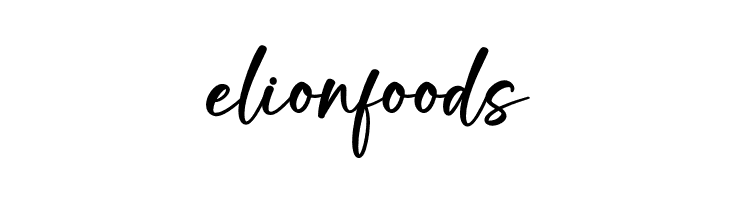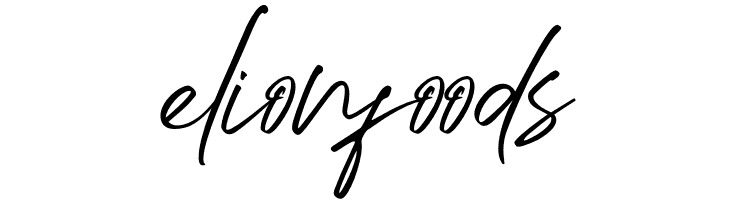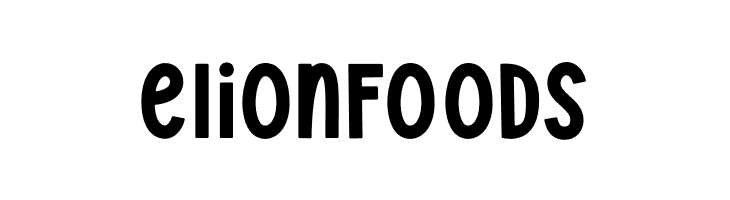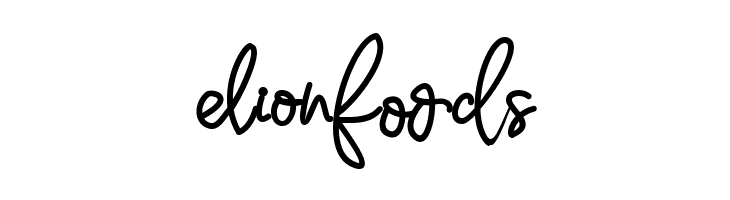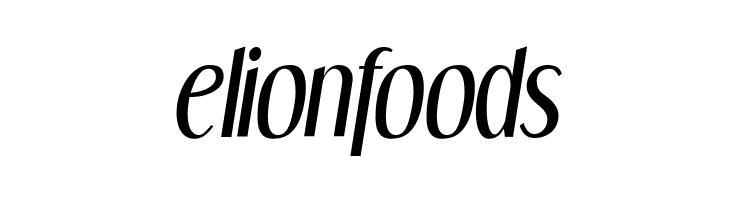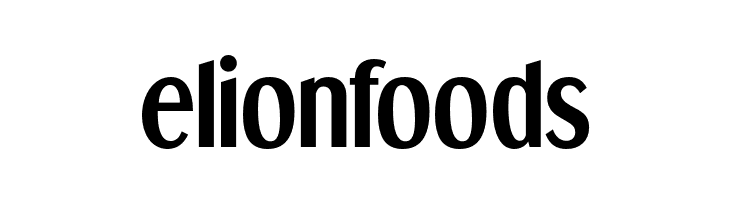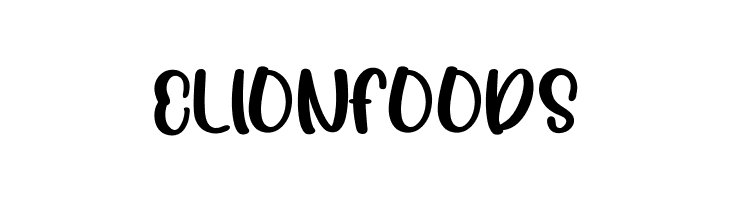
A lively and flowing script font with elegant cursive letterforms.
A dynamic, expressive handwritten font with fluid, cursive strokes.
A playful, bold font with rounded edges and a hand-drawn feel.
A playful, cursive font with interconnected letters and a whimsical style.
A sleek, modern italic font with medium contrast and elegant curves.
A bold, modern font with sharp edges and high contrast, perfect for headlines.
A modern sans-serif font with a clean, balanced design and versatile character set.
A playful, bold script font with smooth, rounded edges and a dynamic slant.
A playful handwritten font with a casual and friendly style.
A playful handwritten font with a friendly and casual style.